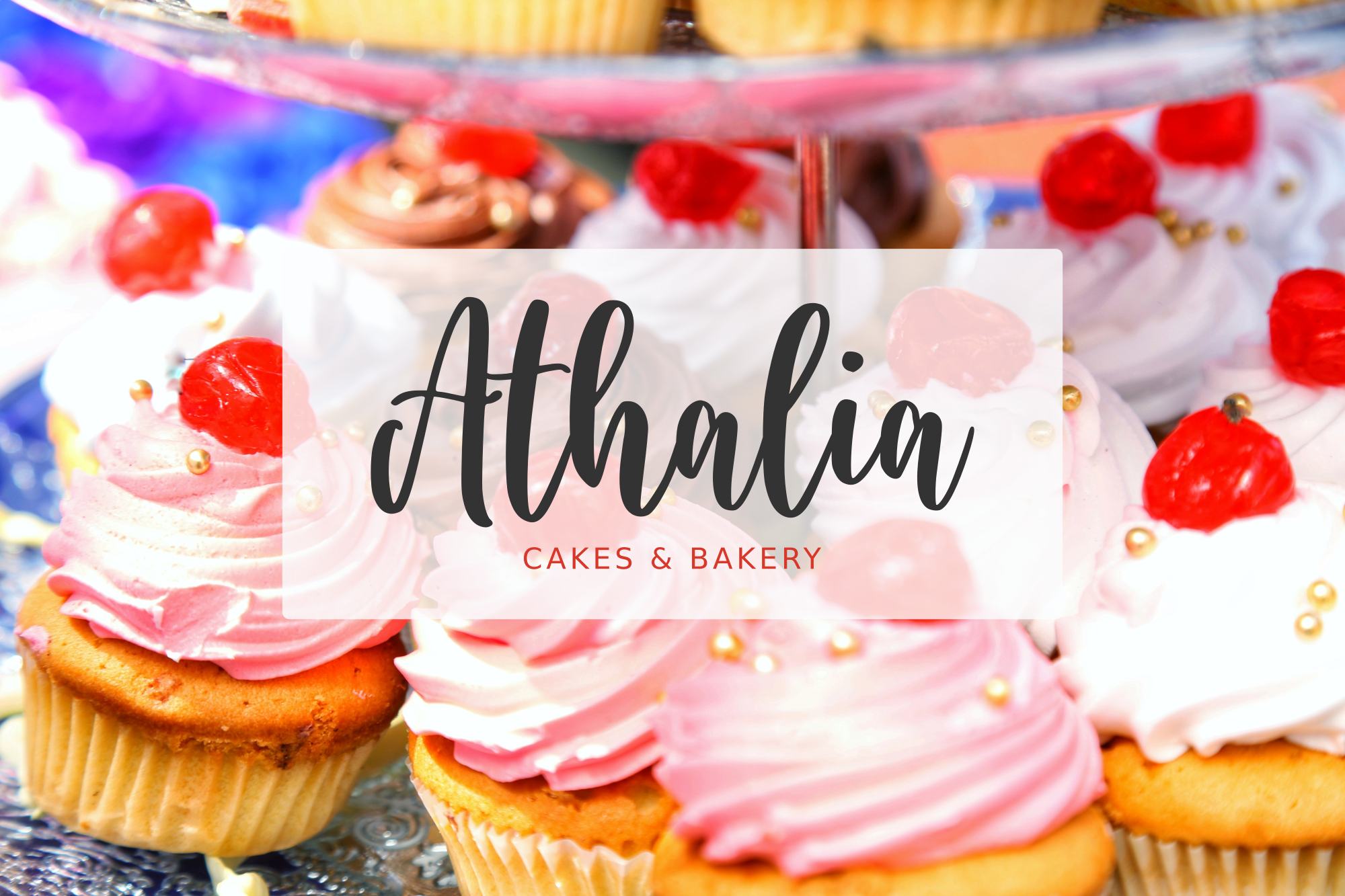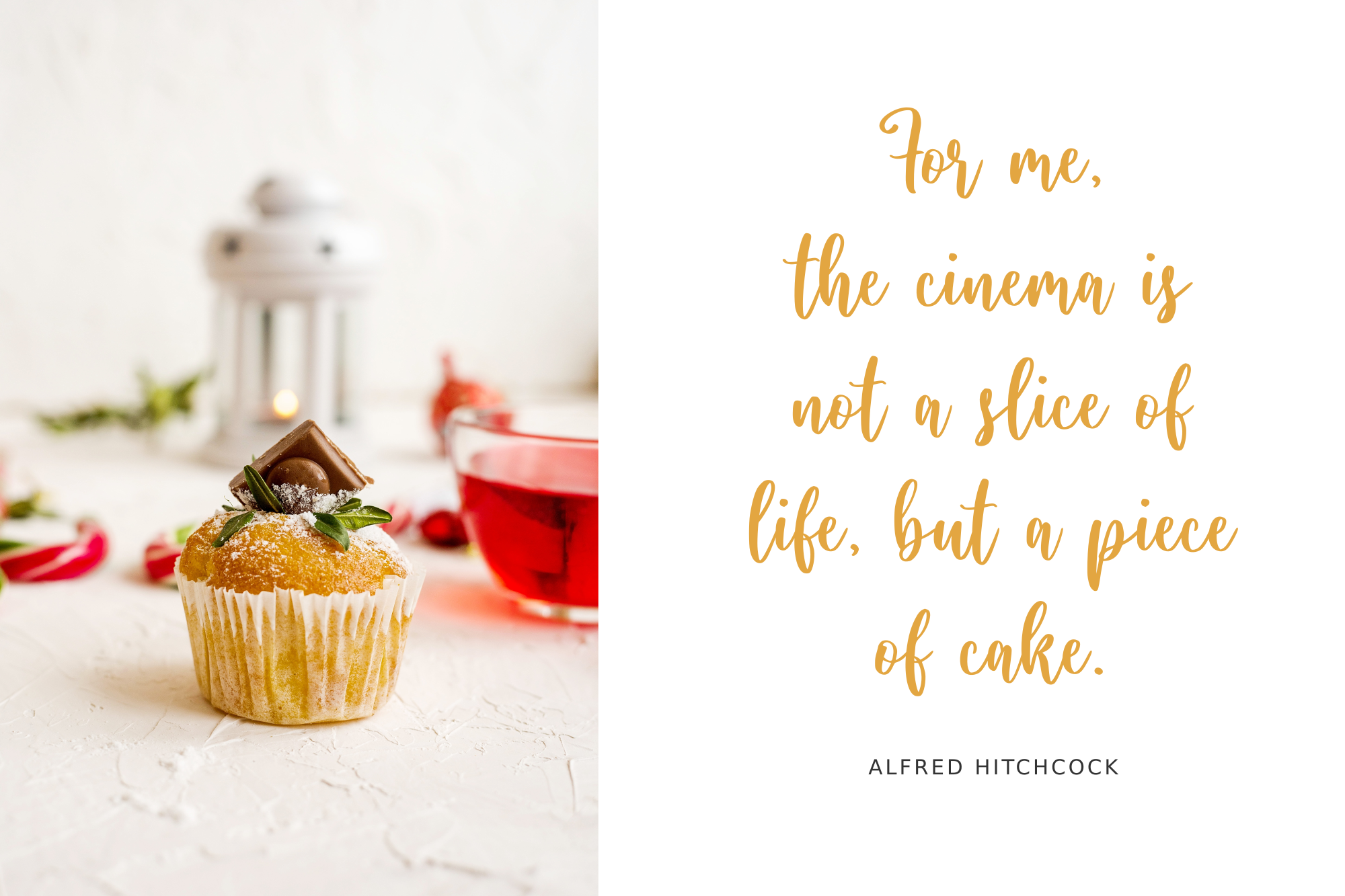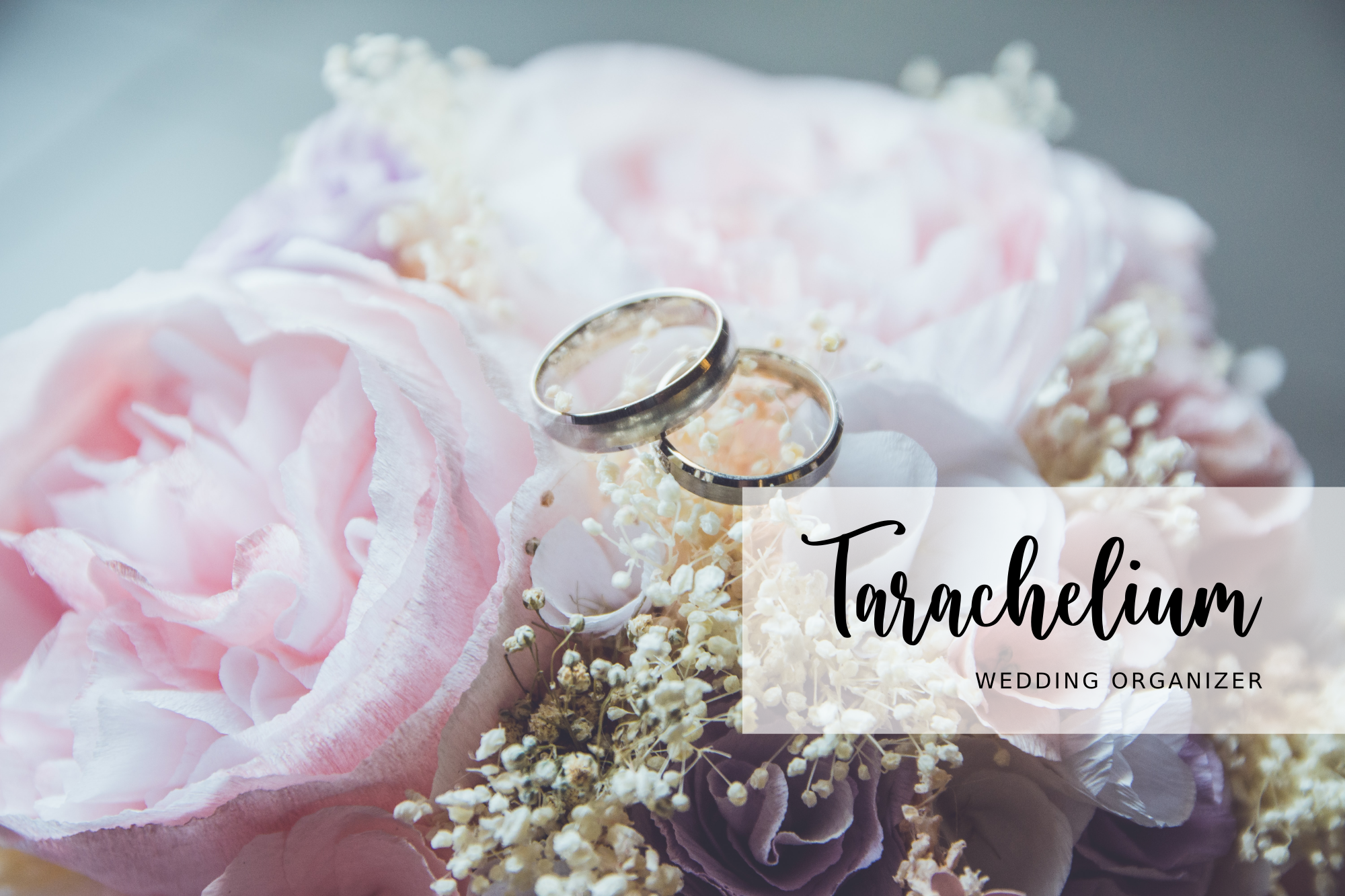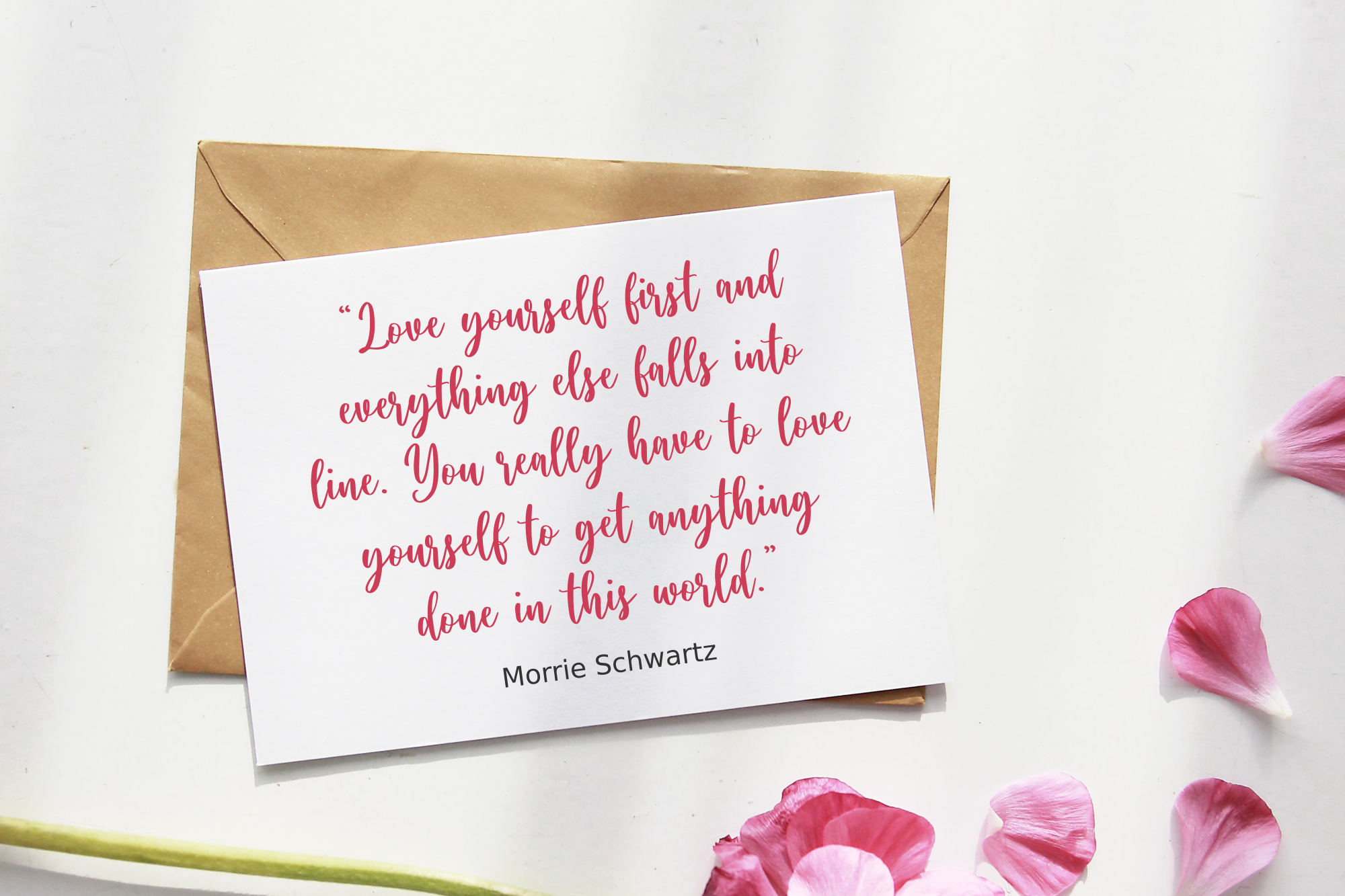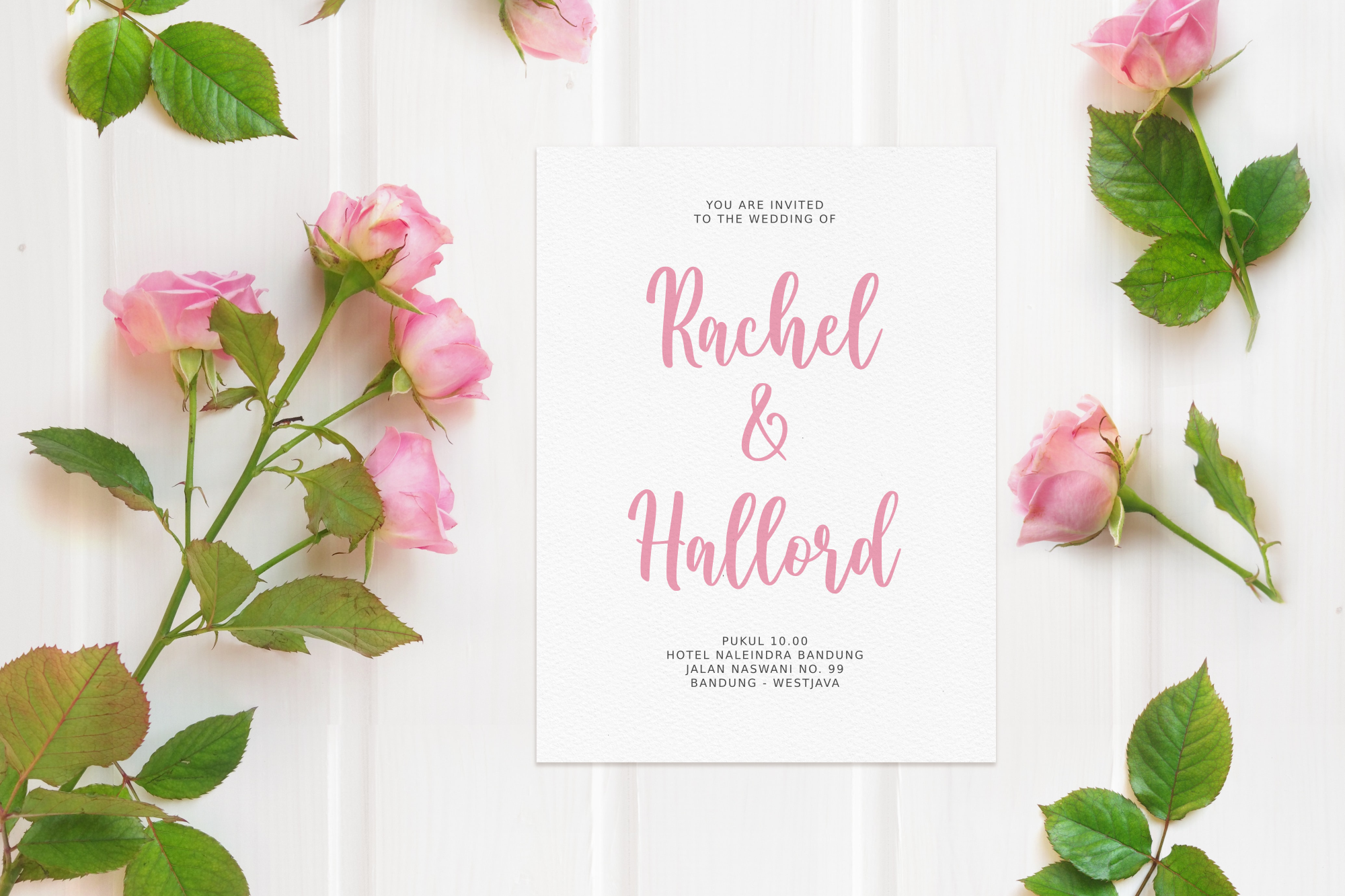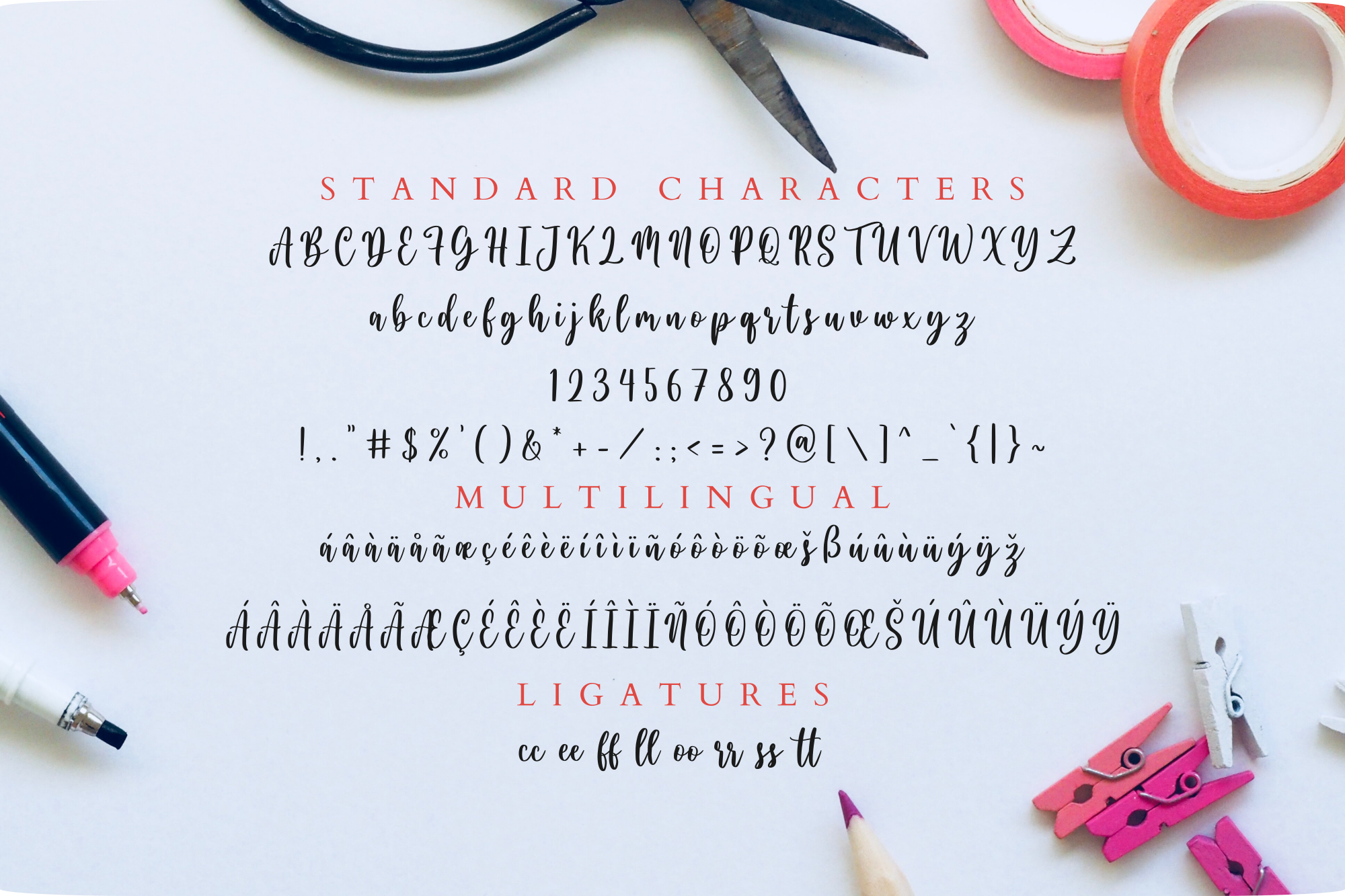
Butter Mallow - Calligraphy Font
Butter Mallow is a modern handwritten font with a friendly and approachable feel. Its soft handmade style makes it easy to use across many creative projects.
Butter Mallow is a modern handwritten font with a friendly and approachable feel. Its soft handmade style makes it easy to use across many creative projects. It is perfect for logos, branding, social media graphics, crafty DIY projects, packaging, quotes, and more.